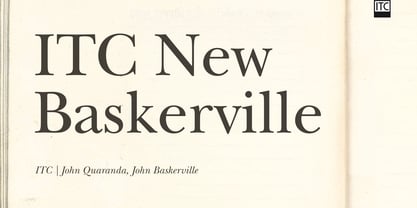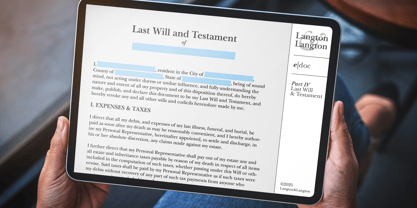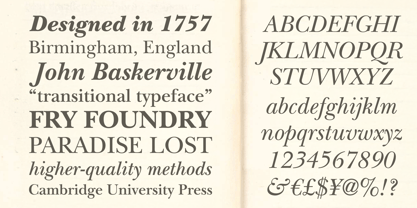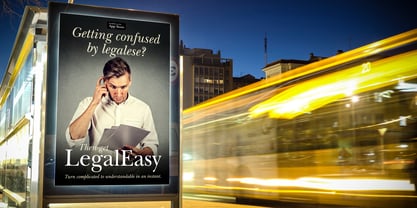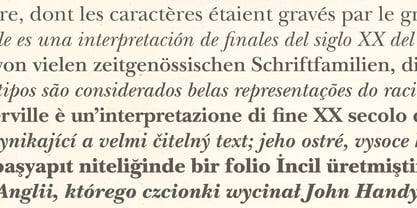
ITC New Baskerville
ITC New Baskerville®
by ITC
ITC New Baskerville Font Family was designed by John Quaranda, John Baskerville and published by ITC. ITC New Baskerville contains 8 styles and family package options. More about this family
About ITC New Baskerville Font Family
ITC New Baskerville is one of many contemporary type families based on the work of John Baskerville (1706-1775), a writing master and printer from Birmingham, England, whose types were cut by the punchcutter John Handy. Baskerville produced a masterpiece folio Bible for Cambridge University, and today, his types are considered to be fine representations of eighteenth-century rationalism and neoclassicism. ITC New Baskerville is a late 20th-century interpretation of Baskerville’s style, designed by John Quaranda. It makes an excellent and very readable text face; its sharp, high-contrast forms make it suitable for elegant advertising settings as well.
Designers: John Quaranda, John Baskerville
Publisher: ITC
Foundry: ITC